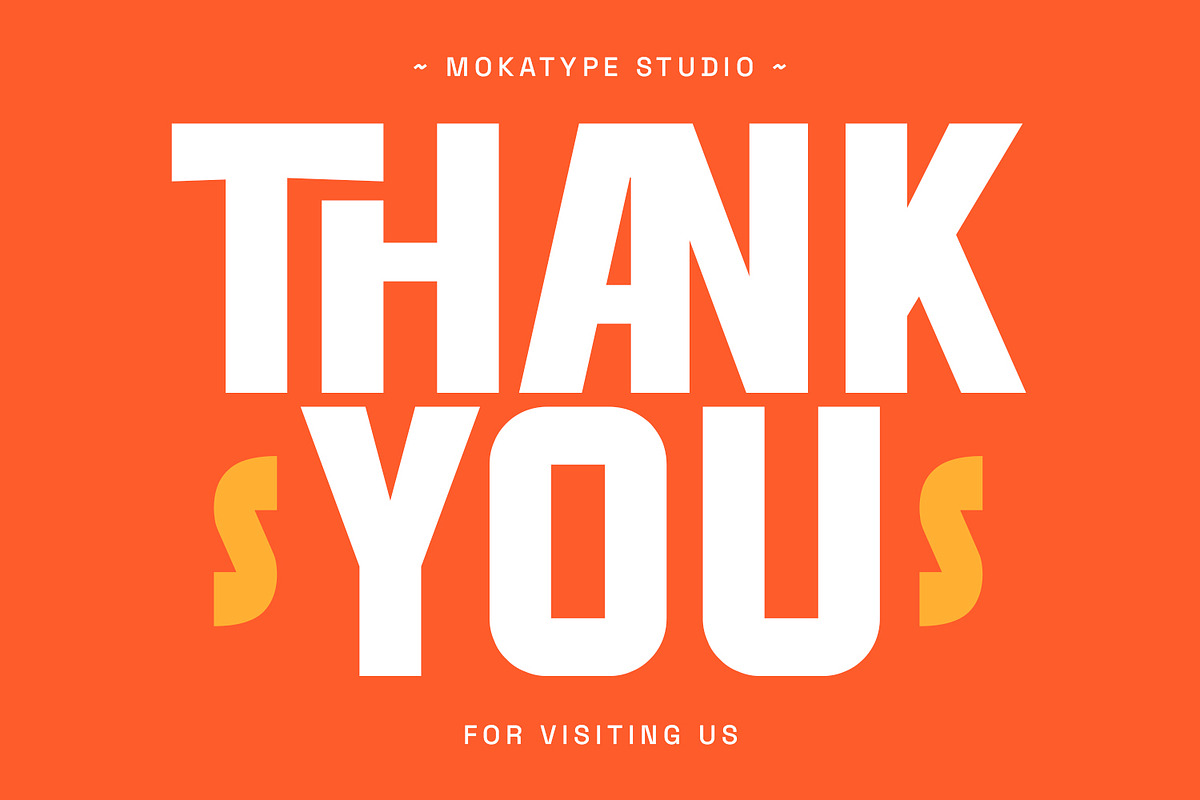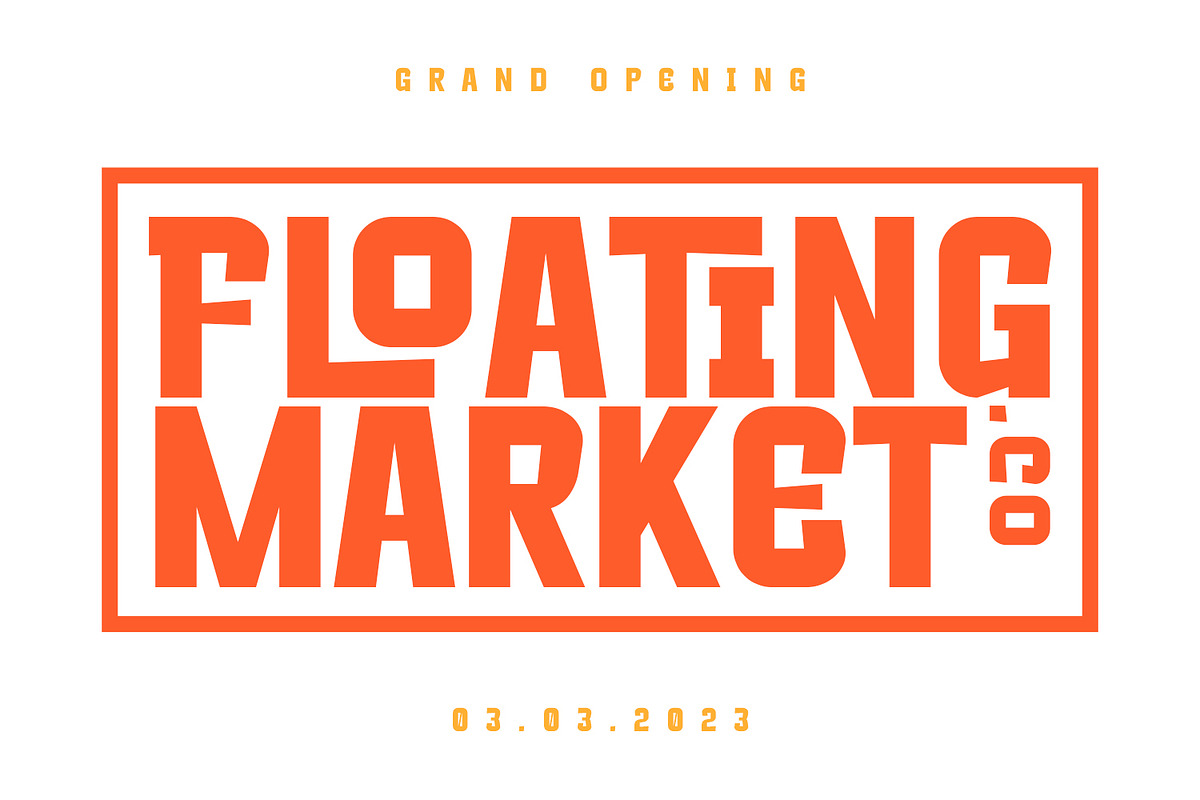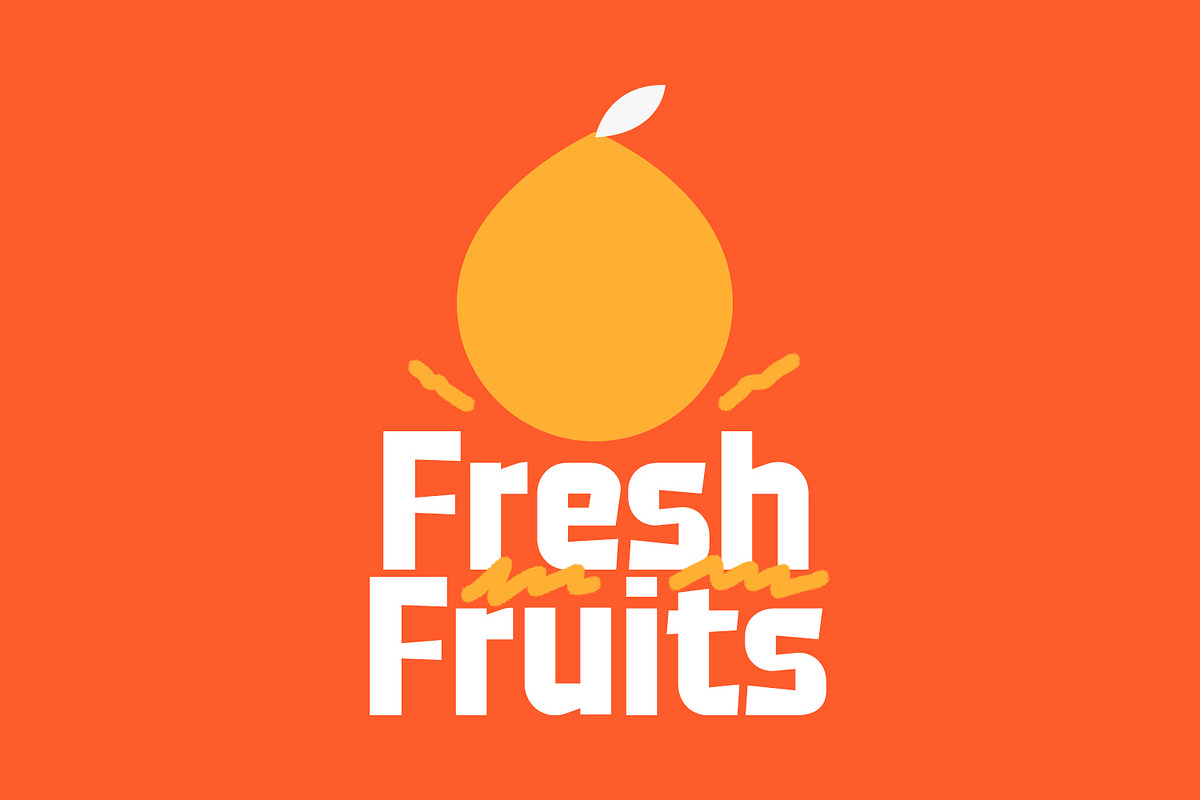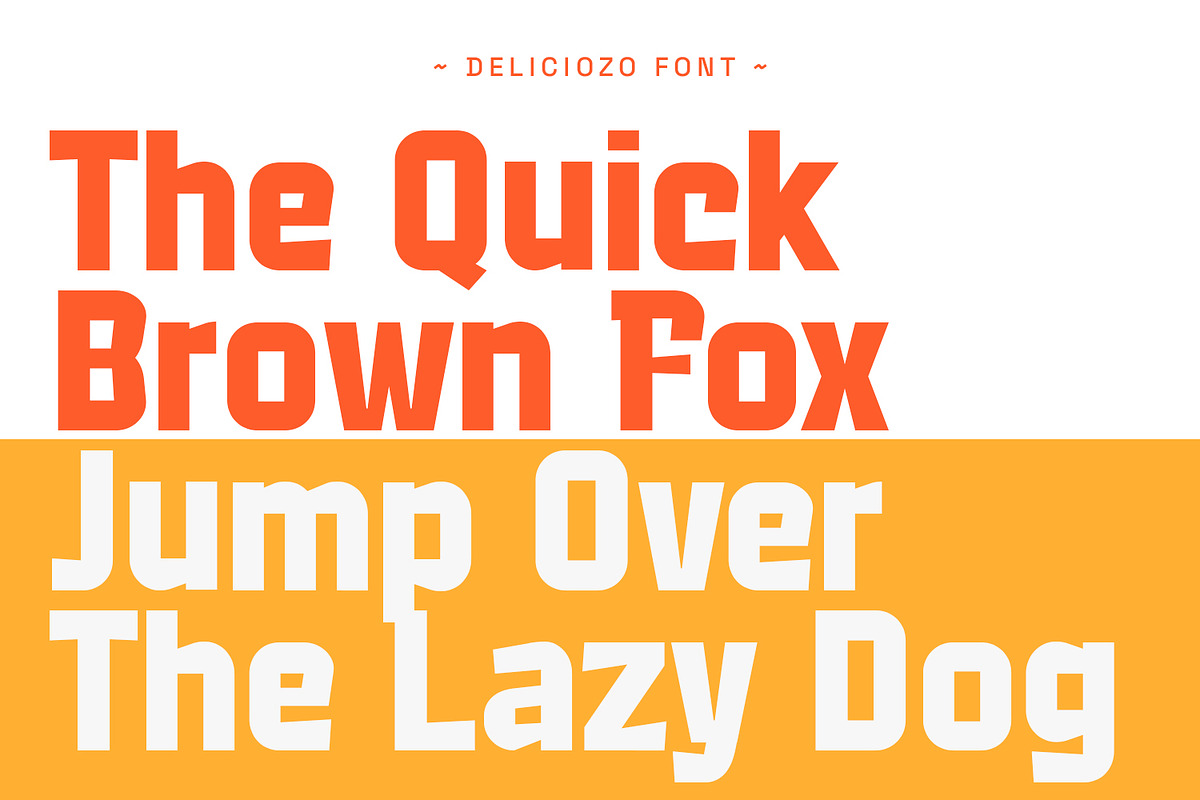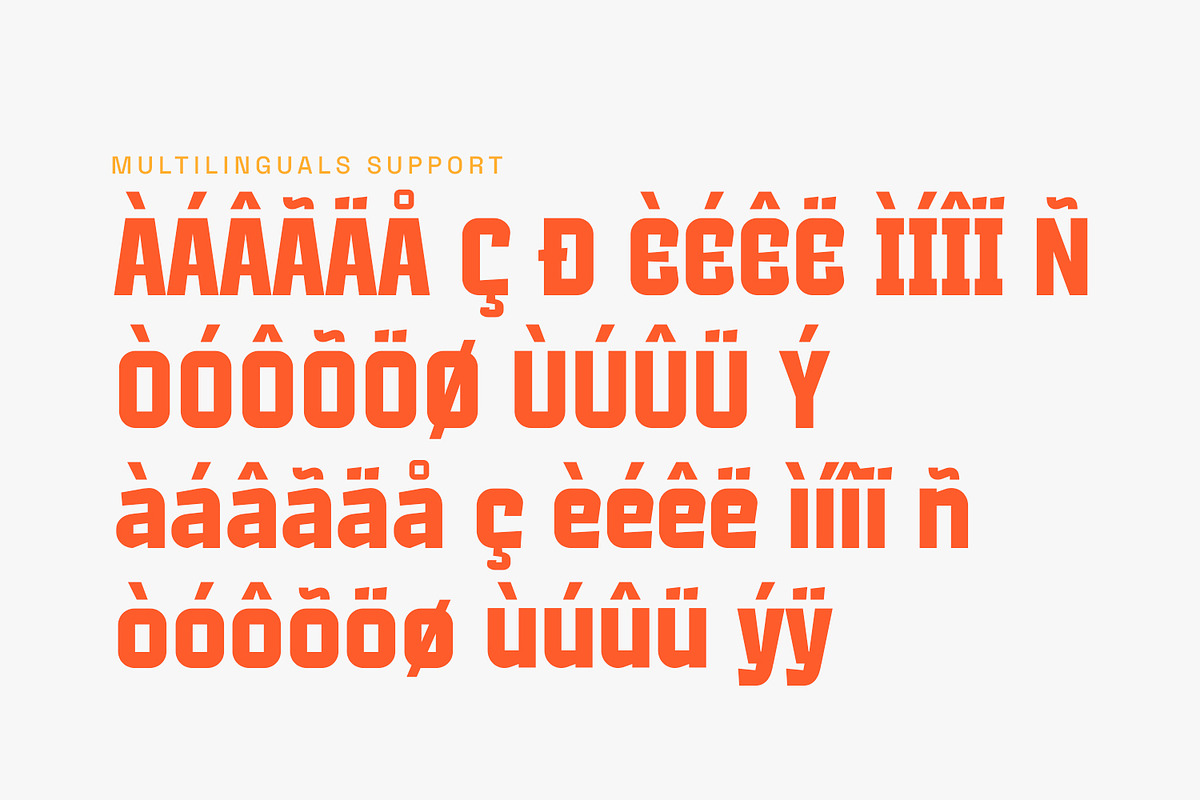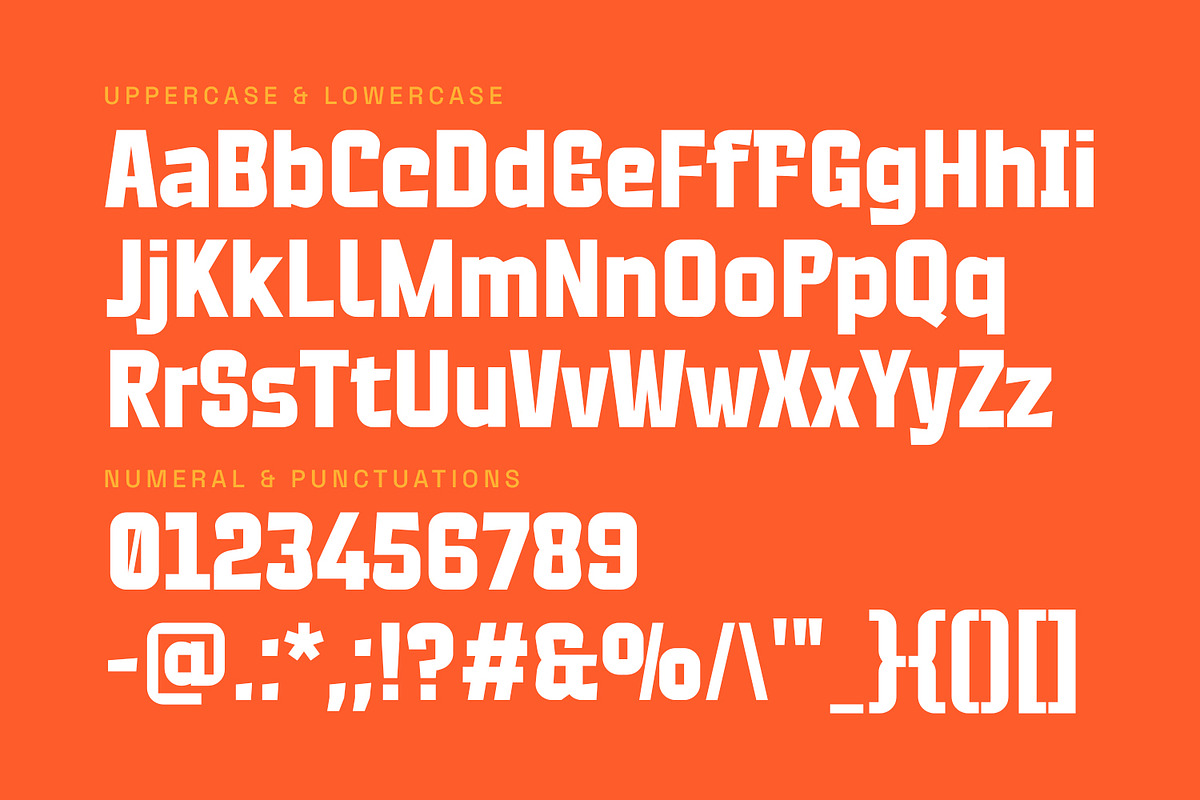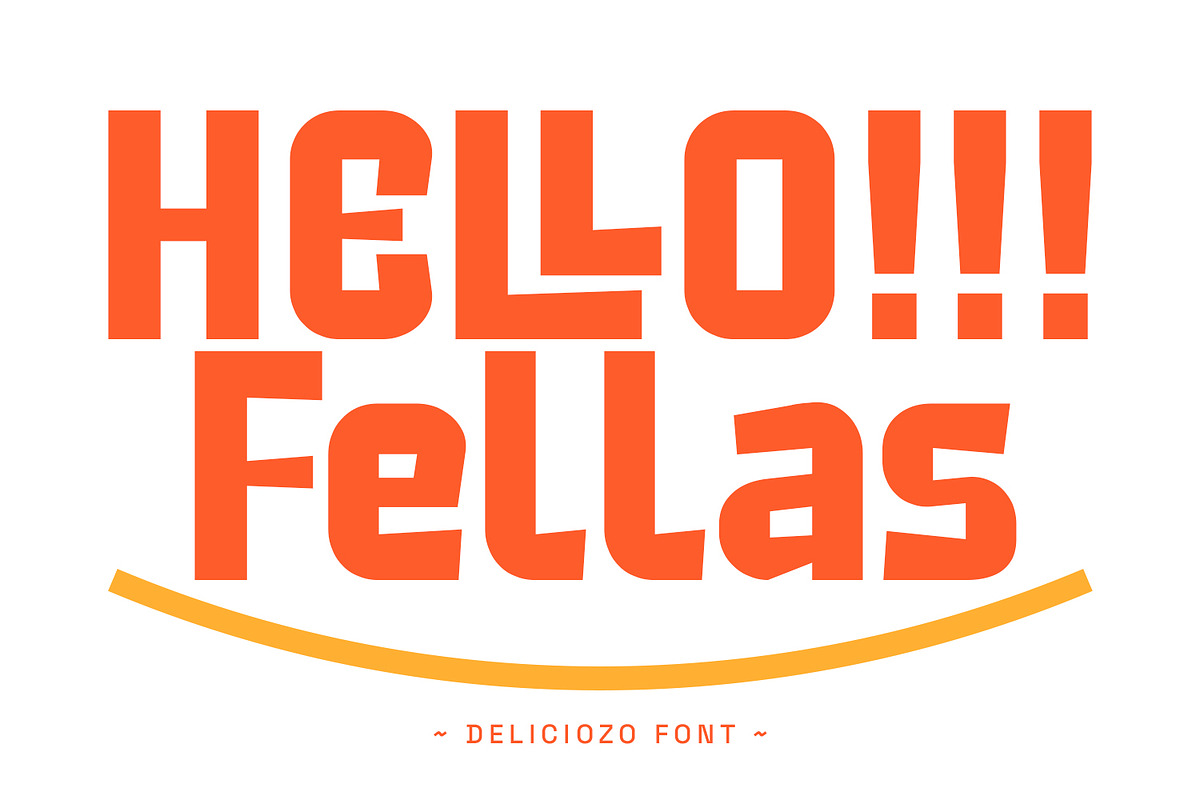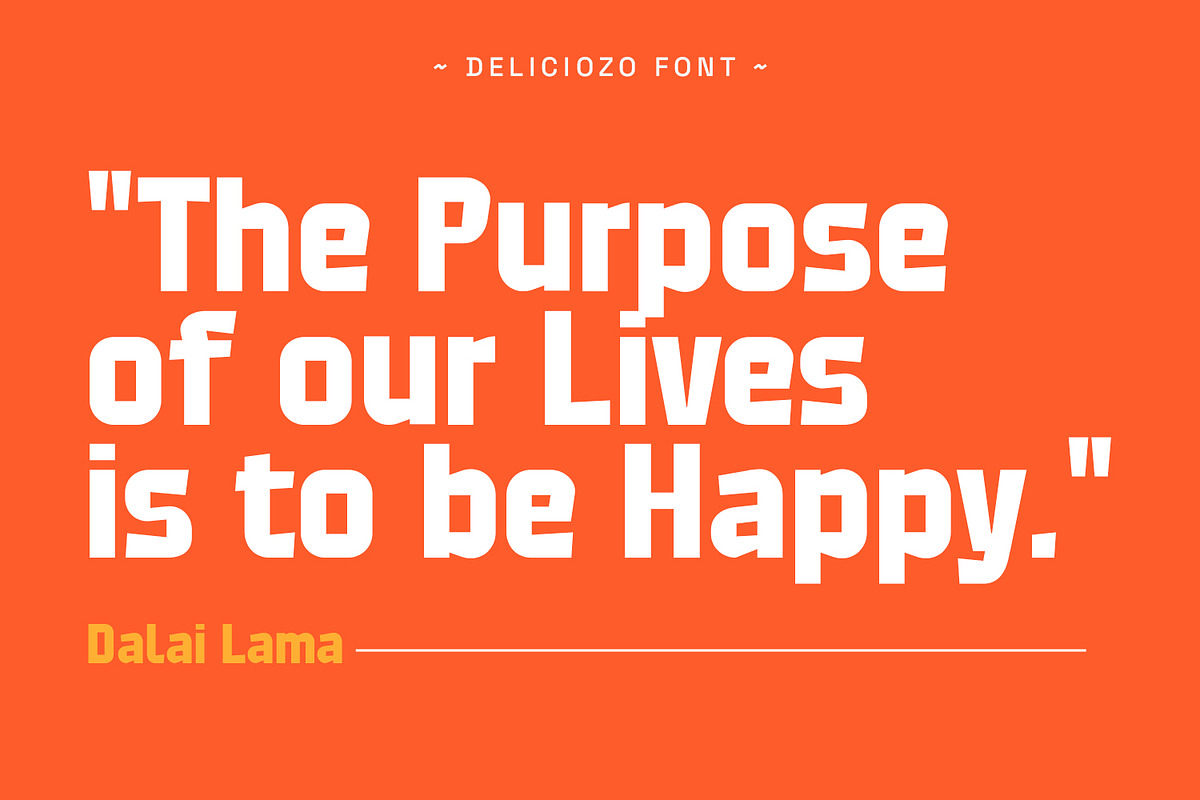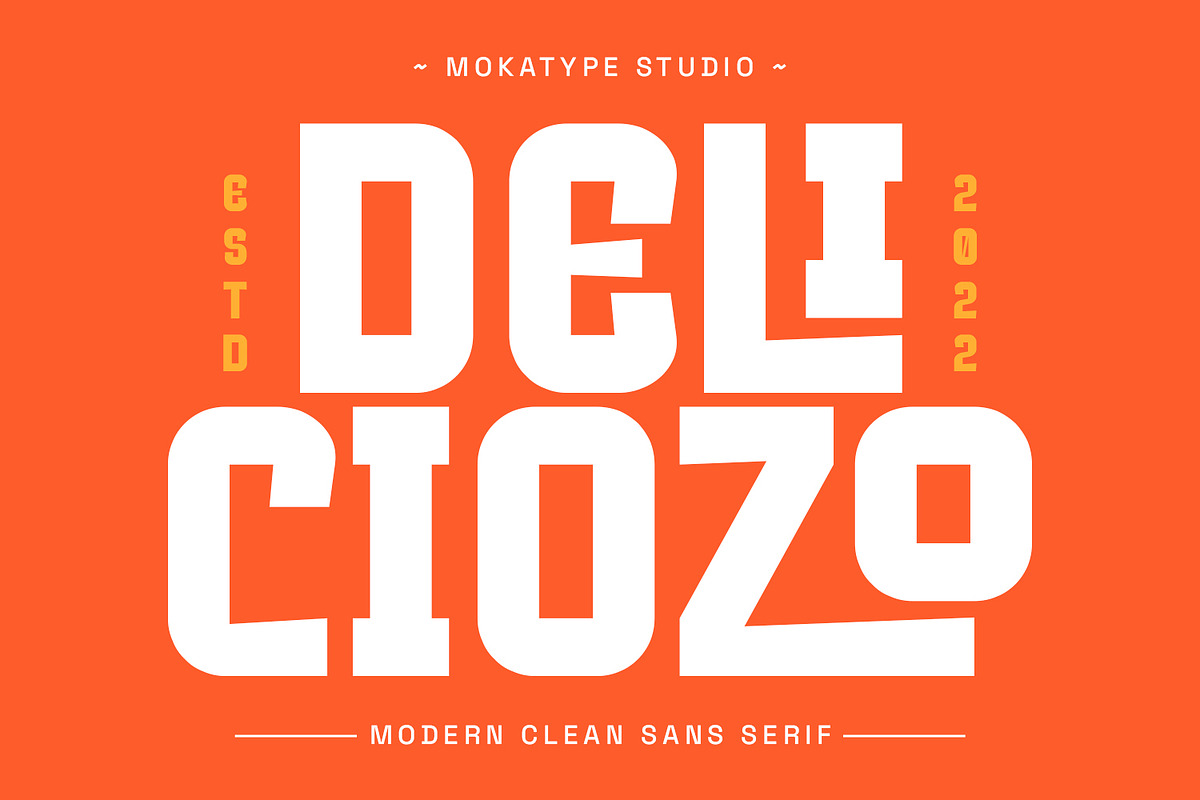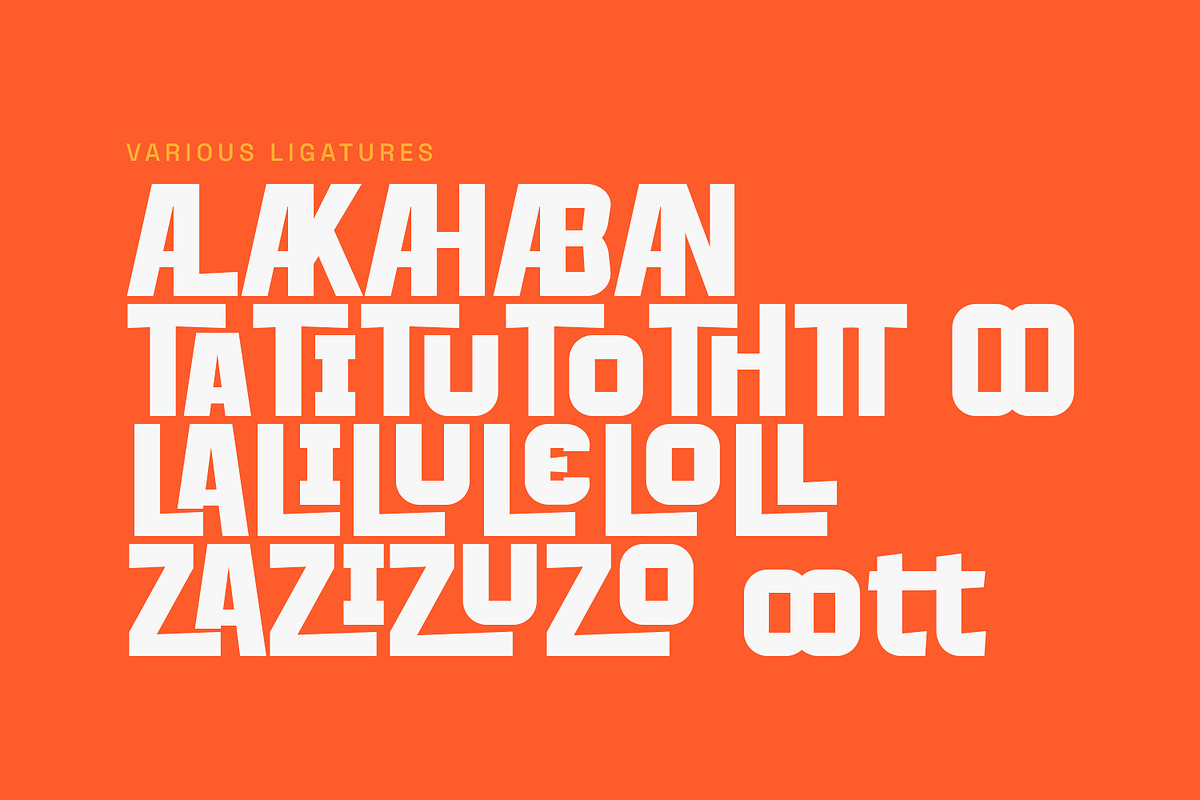
Deliciozo - Modern Clean Sans
Deliciozo is a powerful and elegant display typeface, Deliciozo is strong for simple display design with short text like headlines and quotes. Build with several ligatures, Deliciozo makes a strong impression in print, headlines, videos, social media and etc.
- Ligatures (Opentype features)